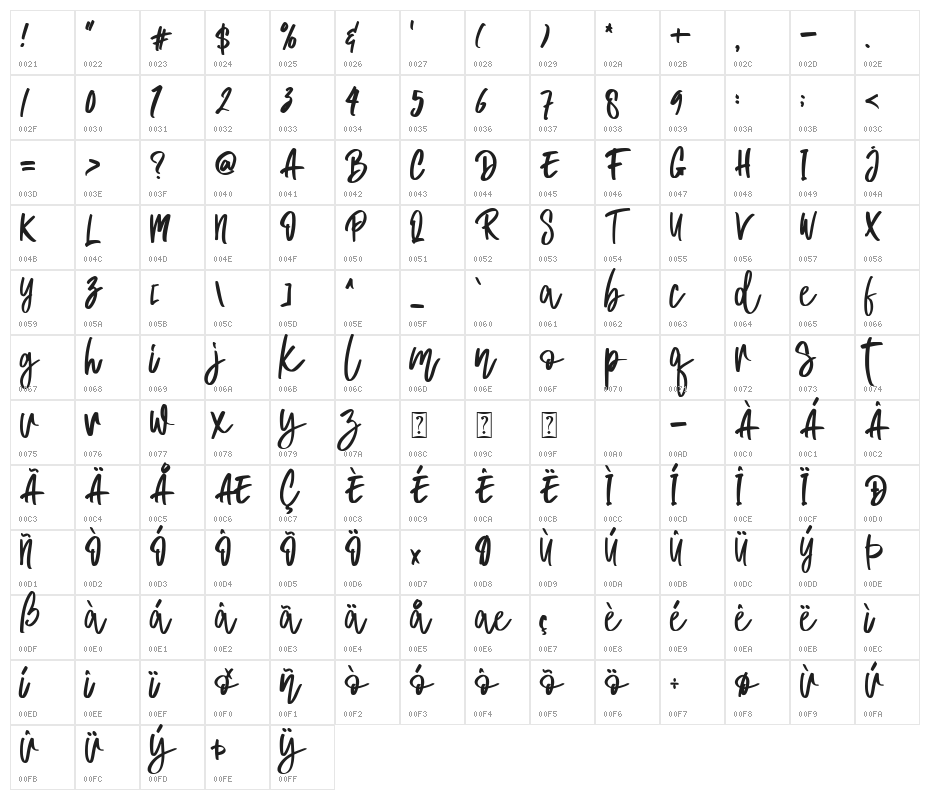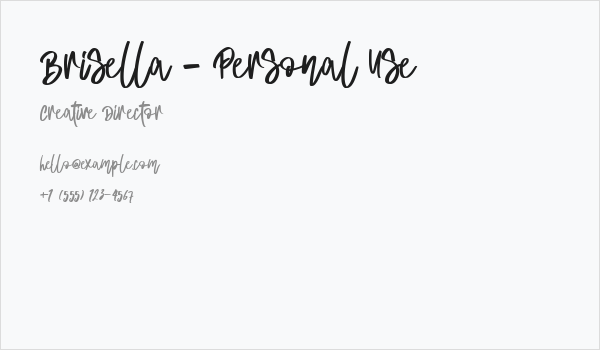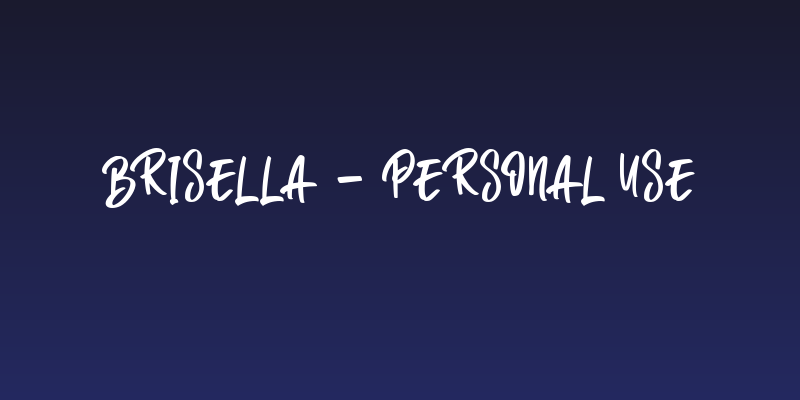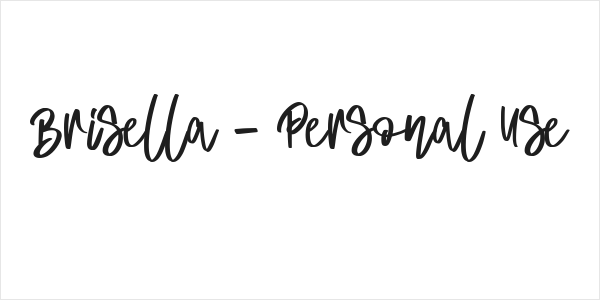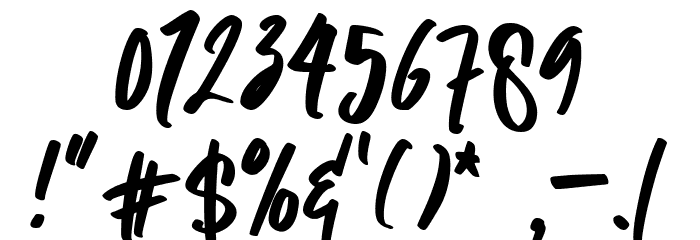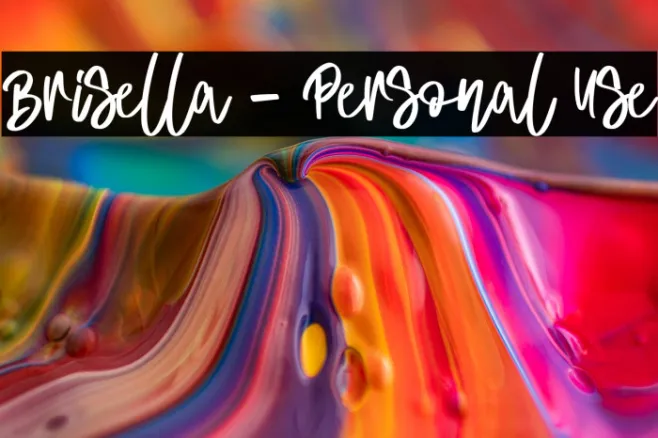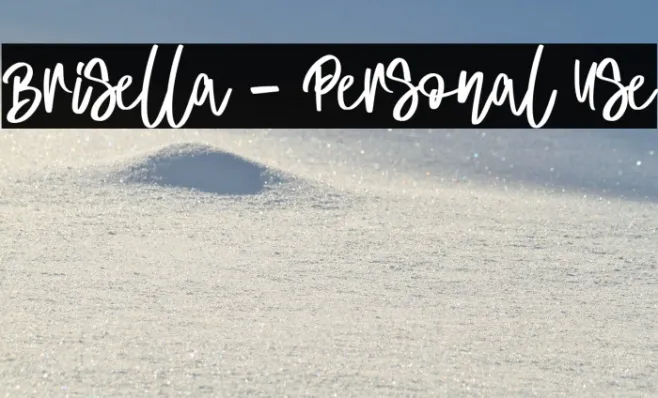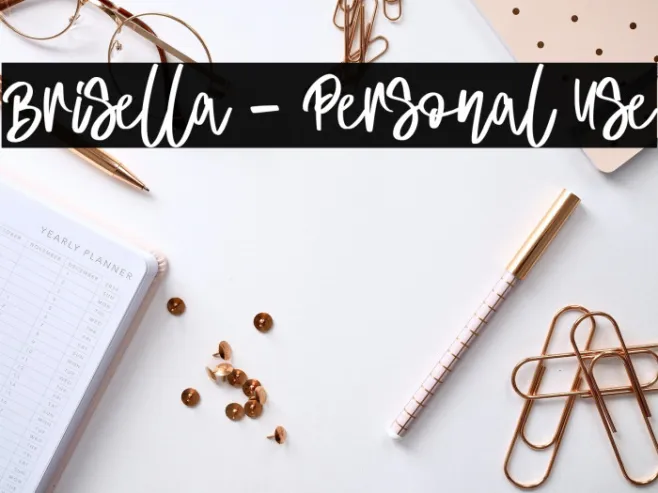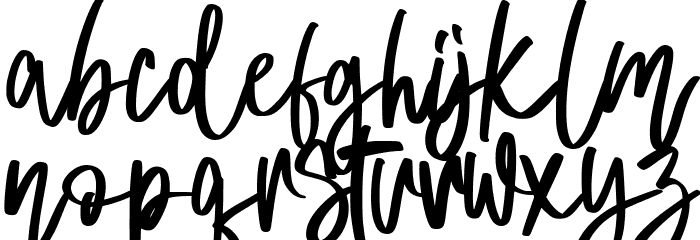
Brisella - Personal Use Font
Brisella - Personal Use Description
This font features a bold, expressive handwritten style with a modern flair. The characters are fluid and dynamic, showcasing a sense of movement and personality. Each letter is crafted with a consistent stroke width, giving it a cohesive appearance. The uppercase letters are tall and commanding, while the lowercase letters maintain a playful and approachable demeanor. The numbers and special characters follow the same lively aesthetic, making them suitable for a variety of creative applications. The overall design is both stylish and versatile, perfect for adding a personal touch to any project.